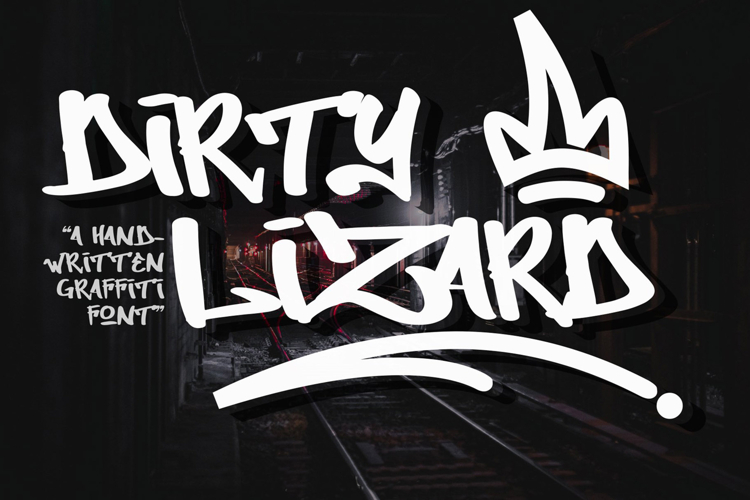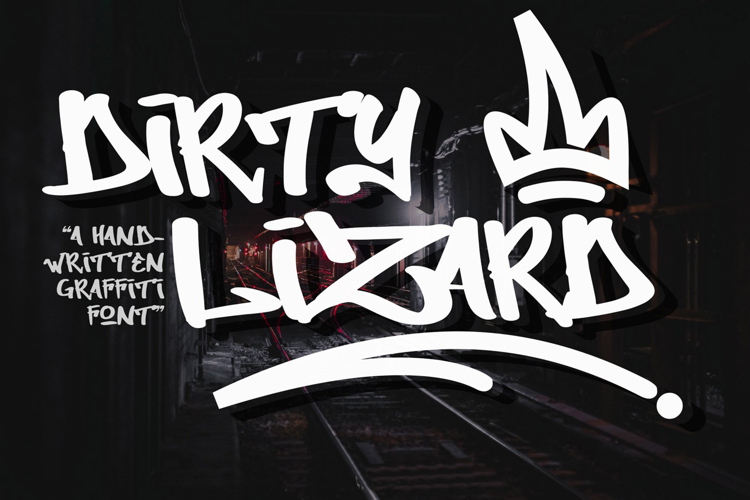
Dirty Lizard is a display font with a graffiti style. It will elevate a wide range of design projects to the highest level, be it branding, headings, wedding designs, invitations, signatures, logos, labels, and much more!